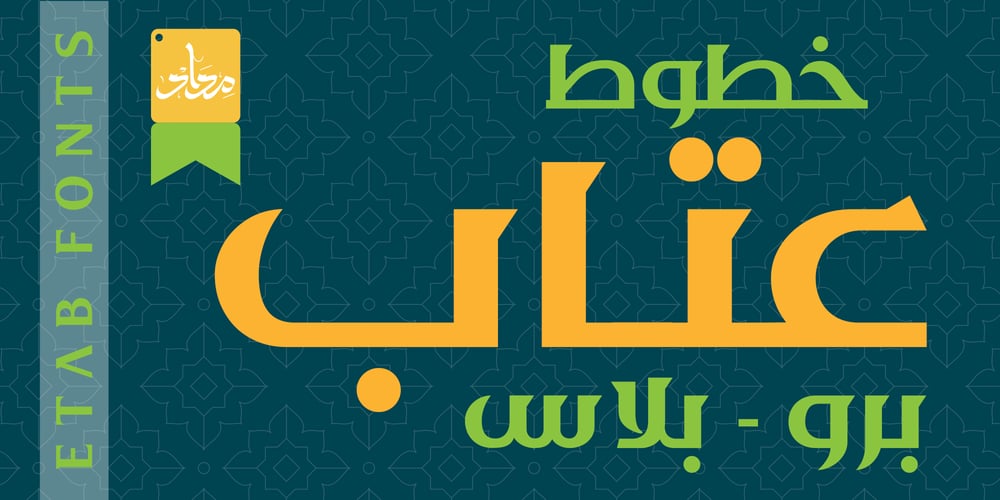
MF Etab Font Family was designed by Hossam El Deen Ahmed and published by Medad Font. MF Etab contains 2 styles and family package options. Etab Fonts: Available in two versions, Etab Pro and Etab Plus, these fonts are meticulously crafted for those who seek the beauty of Arabic script combined with robust structure. Designed to seamlessly pair with computerized English fonts, Etab offers smart alternates for character shapes and compositions. This adds a rich aesthetic diversity, perfect for creating elegant logos and captivating headlines. Start your creative journey with Etab Fonts, and craft stunning logos that tell unforgettable stories with their elegance.